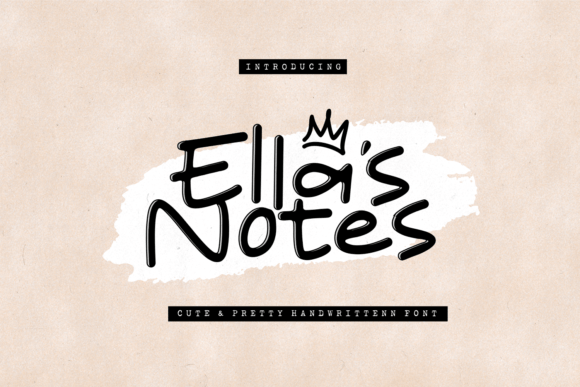
Ella’s Notes Font: Adding a Touch of Fun to Your Designs
In the world of design, fonts play a crucial role in conveying the tone and personality of a project. If you’re looking for a font that can add a touch of fun and whimsy to your designs, look no further than Ella’s Notes. This playful and friendly font is perfect for creating inviting social media graphics, children’s books, or anything that needs a lighthearted touch.
The Characteristics of Ella’s Notes Font
Ella’s Notes is a unique font that boasts whimsical letterforms and a bubbly personality. Its playful design makes it perfect for designs that require a friendly and approachable tone. The font’s characteristics include:
- Whimsical letterforms: Ella’s Notes features letterforms that are playful and fun, making it perfect for designs that require a lighthearted touch.
- Bubbly personality: The font’s bubbly personality shines through in its design, making it perfect for creating inviting and engaging designs.
- Approachable tone: Ella’s Notes has an approachable tone that makes it perfect for designs that require a friendly and welcoming feel.
Uses for Ella’s Notes Font
Ella’s Notes is a versatile font that can be used in a variety of design projects. Some of the uses for this font include:
- Social media graphics: Ella’s Notes is perfect for creating inviting social media graphics that require a lighthearted touch.
- Children’s books: The font’s playful design makes it perfect for children’s books, where a fun and engaging tone is essential.
- Crafting and DIY projects: Ella’s Notes is also perfect for crafting and DIY projects, such as scrapbooking, card making, and other paper crafts.
- Branding and marketing: The font’s friendly and approachable tone makes it perfect for branding and marketing projects that require a welcoming feel.
Why Choose Ella’s Notes Font?
There are many fonts available that can add a touch of fun to your designs, but Ella’s Notes stands out from the crowd. Here are some reasons why you should choose Ella’s Notes:
- Unique design: Ella’s Notes has a unique design that sets it apart from other fonts.
- Playful personality: The font’s playful personality makes it perfect for designs that require a lighthearted touch.
- Easy to read: Despite its playful design, Ella’s Notes is easy to read, making it perfect for designs that require a clear and concise message.
- Versatile: The font’s versatility makes it perfect for a wide range of design projects.
Tips for Using Ella’s Notes Font
To get the most out of Ella’s Notes, here are some tips for using the font:
- Use it for headings: Ella’s Notes is perfect for headings, where its playful design can add a touch of fun to your designs.
- Pair it with other fonts: The font can be paired with other fonts to create a unique and engaging design.
- Experiment with colors: Ella’s Notes can be used with a range of colors to create a design that is eye-catching and engaging.
- Use it for kids’ projects: The font’s playful design makes it perfect for kids’ projects, such as children’s books, games, and activities.
Ella’s Notes is a playful and friendly font that is perfect for adding a touch of fun to your designs. Its whimsical letterforms and bubbly personality make it perfect for creating inviting social media graphics, children’s books, or anything that needs a lighthearted touch. With its unique design, playful personality, and versatility, Ella’s Notes is a font that every designer and crafter should have in their toolkit.